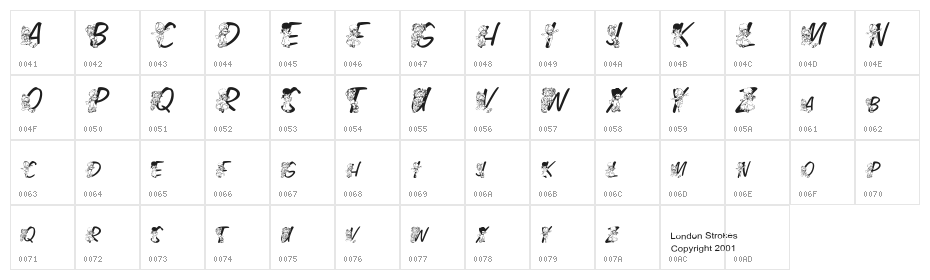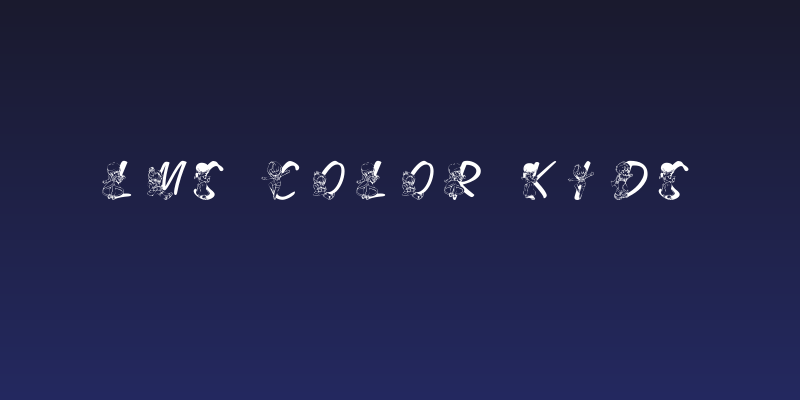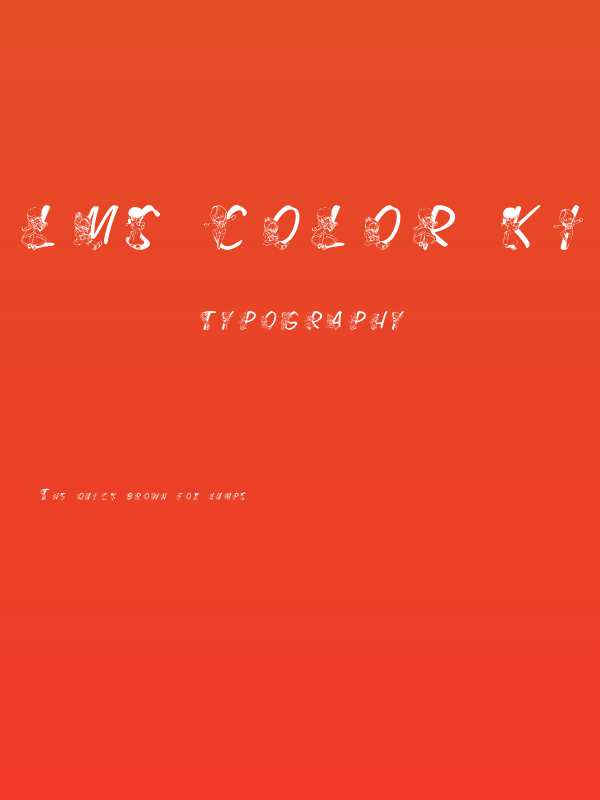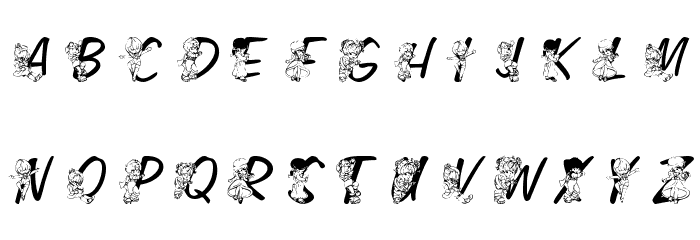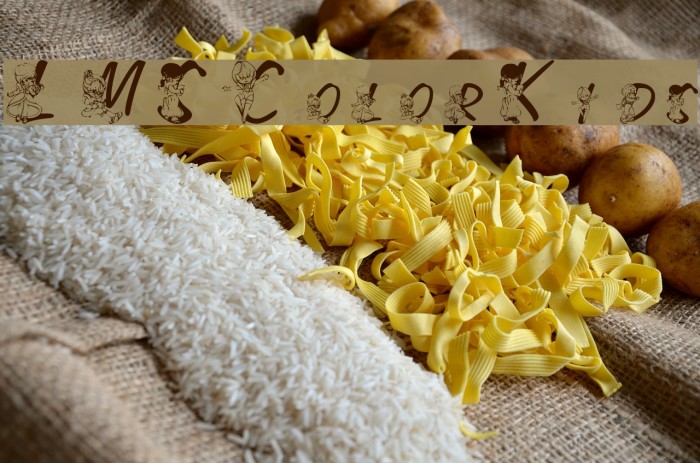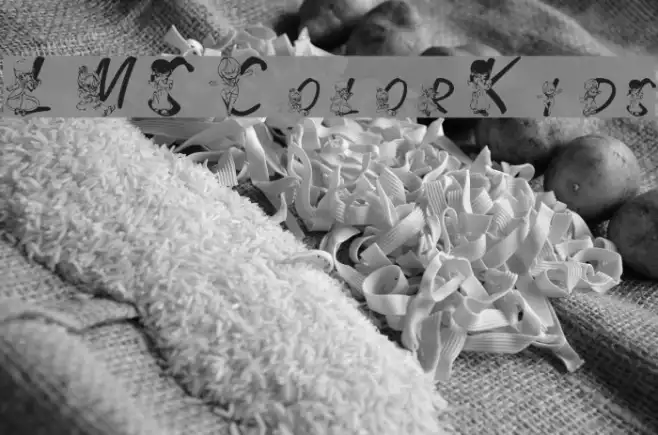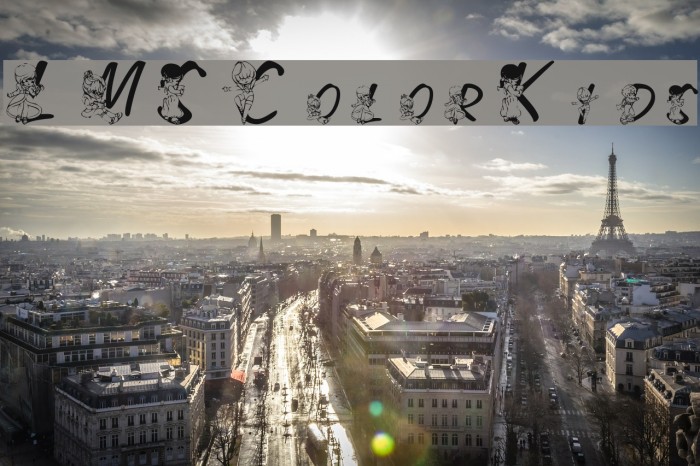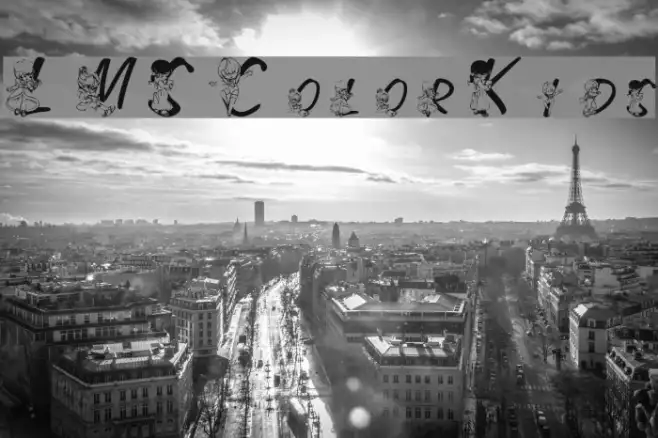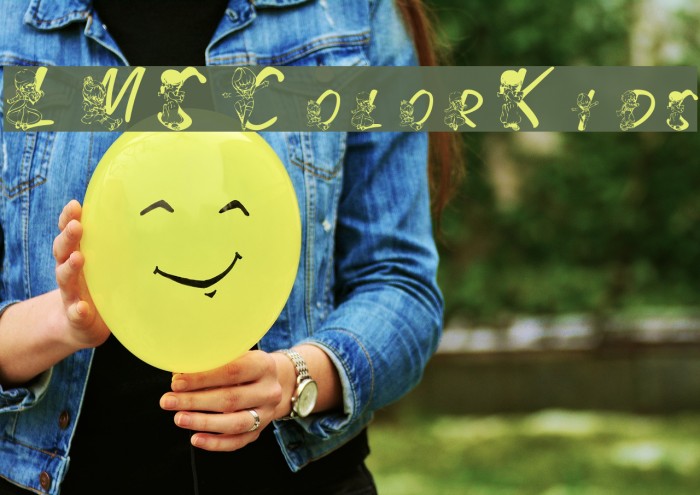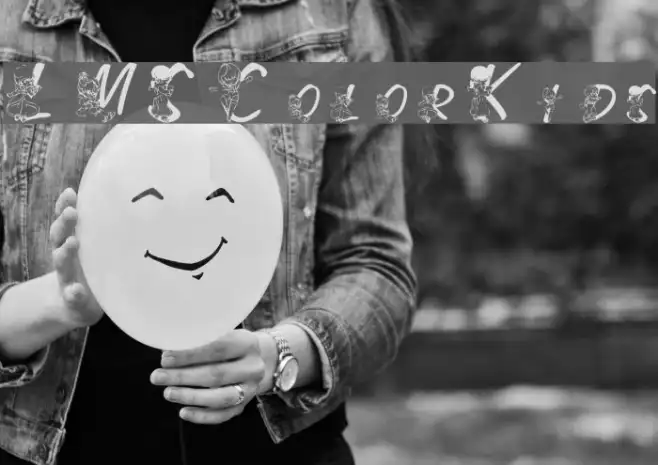
LMS Color Kids Font
LMS Color Kids Description
This playful and whimsical font features charming illustrations of children integrated into each letter, creating a unique and engaging visual experience. The characters are bold and dynamic, with a mix of thick and thin strokes that add to the lively feel. The incorporation of playful elements makes it ideal for projects aimed at a younger audience or those seeking a fun and creative touch. The font maintains a consistent style across both uppercase and lowercase letters, ensuring readability while adding a decorative flair.
| Use Case | Headlines, Logos, Creative Projects |
| Proposed Projects | Ideal for children's books, educational materials, playful branding, and creative invitations. |